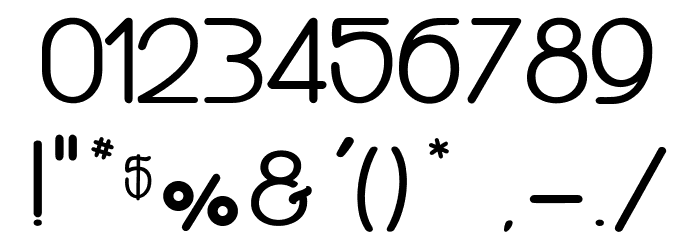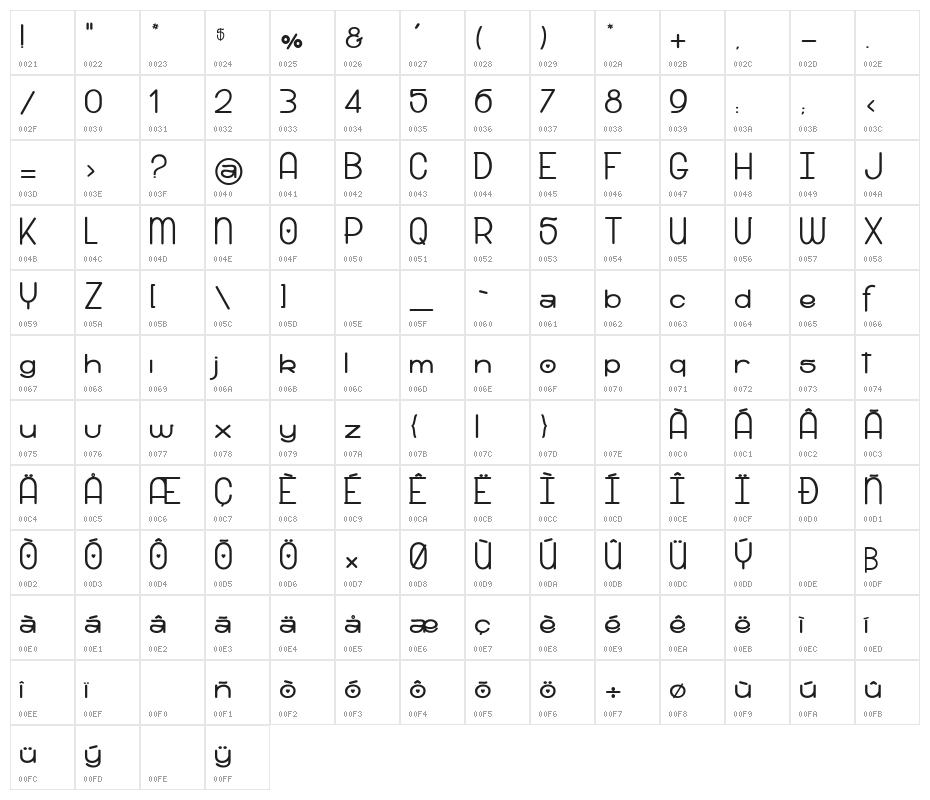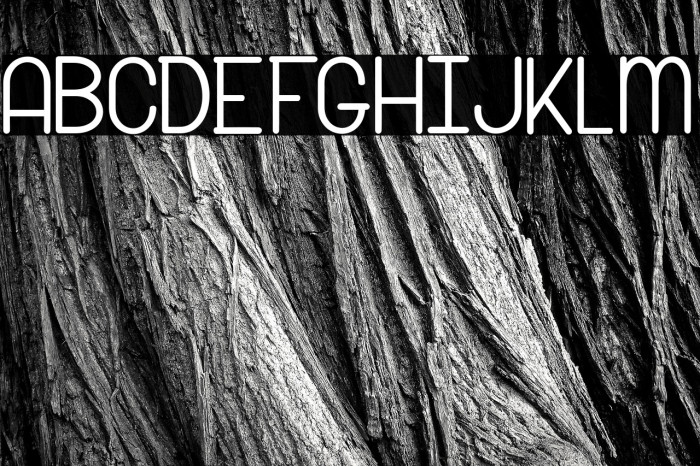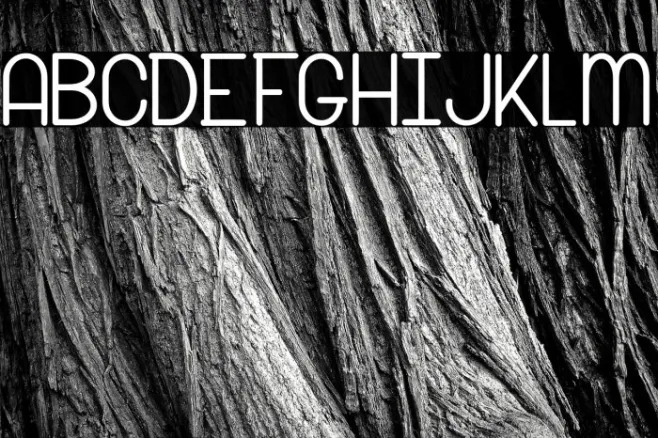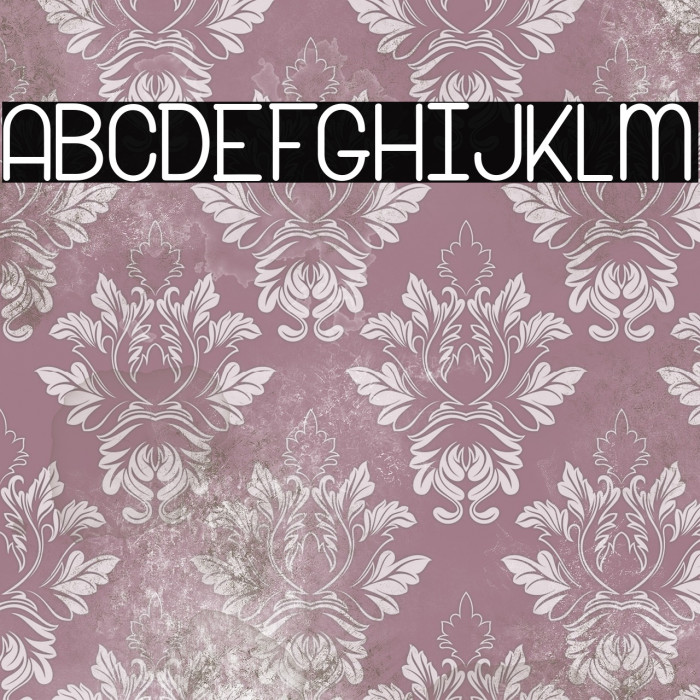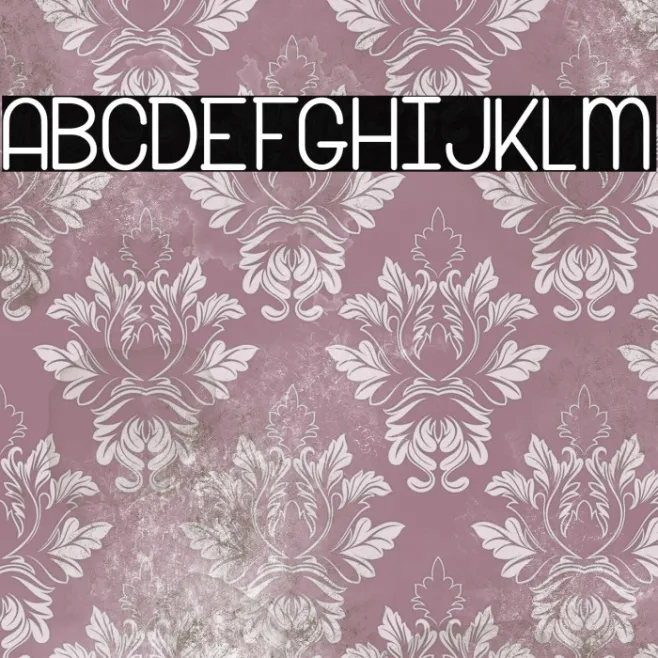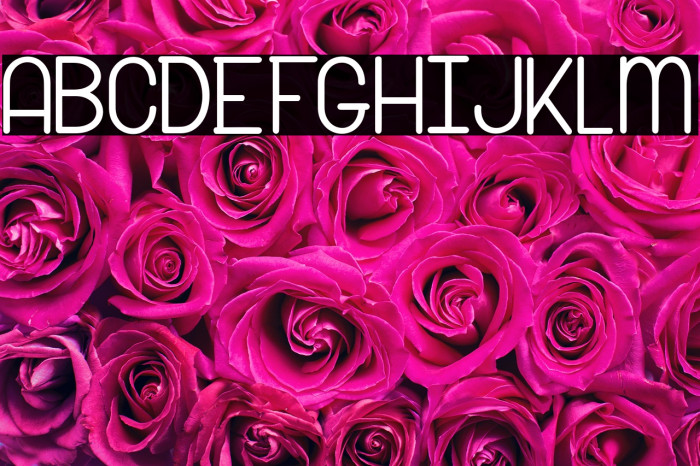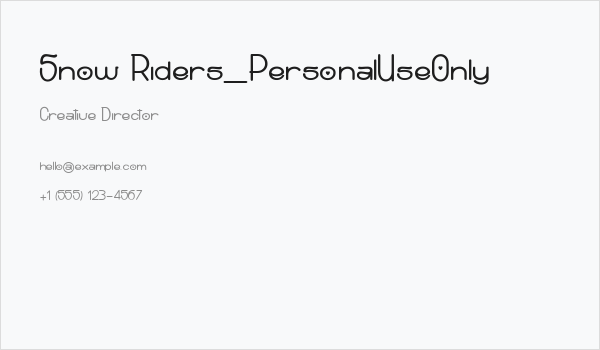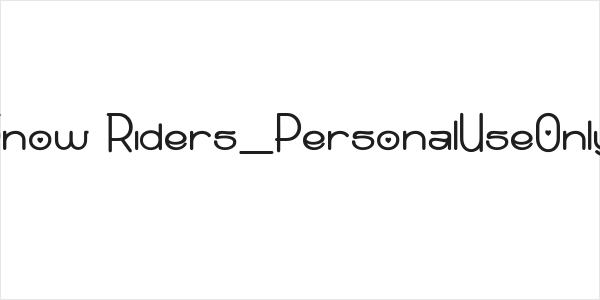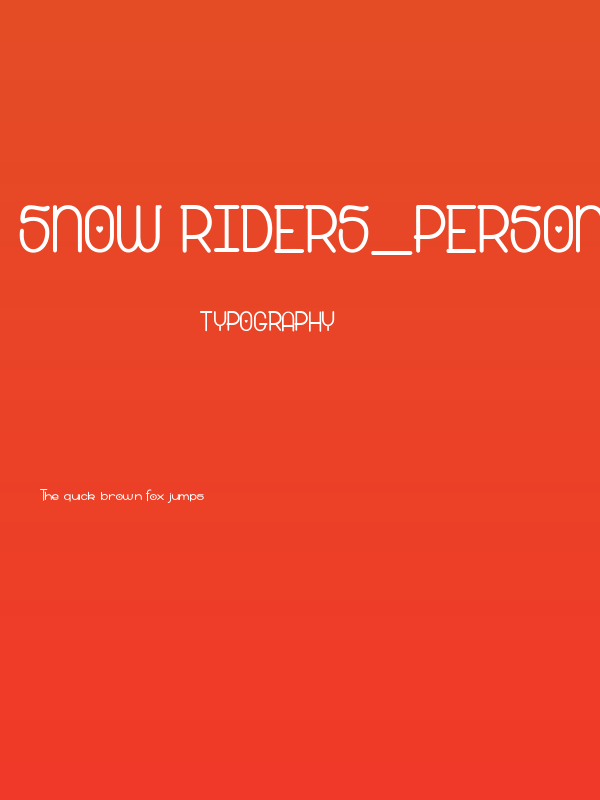
Snow Riders_PersonalUseOnly Font
Snow Riders_PersonalUseOnly Description
This font features a playful and rounded design, characterized by its smooth, continuous lines and uniform stroke width. The uppercase letters are tall and slightly narrow, with a consistent height that gives a clean and organized appearance. The lowercase letters maintain the same rounded style, offering a friendly and approachable feel. Numbers are designed with the same rounded edges, ensuring consistency throughout. Special characters are integrated seamlessly, maintaining the overall aesthetic. This font is ideal for projects that require a modern yet casual look, making it suitable for a variety of creative applications.
| Use Case | Headlines, Logos, Casual Text |
| Proposed Projects | Ideal for children's books, playful branding, casual invitations, and modern web design. |